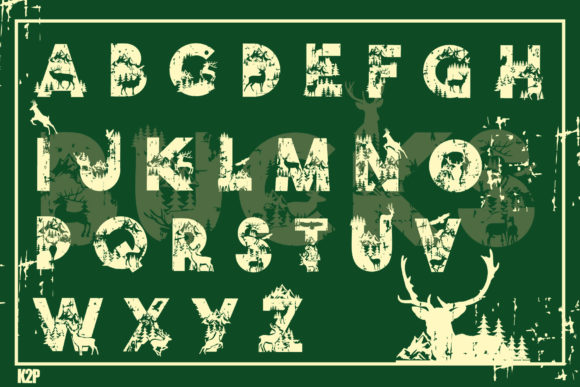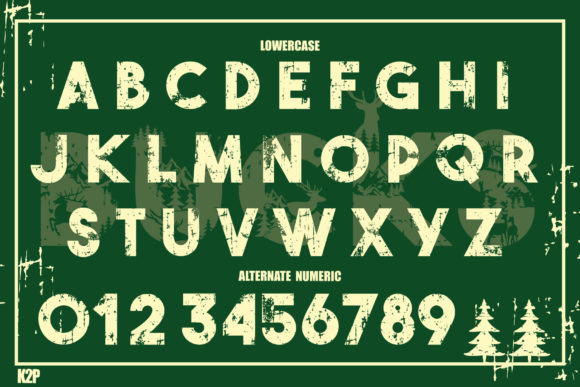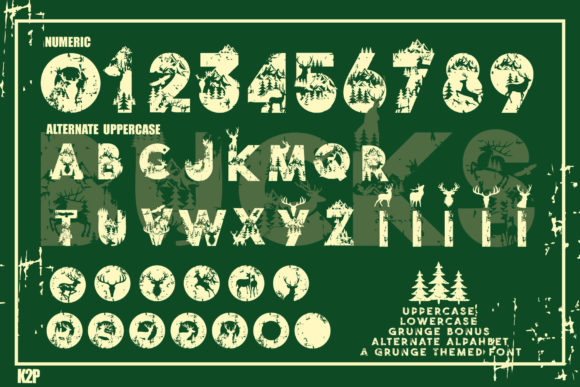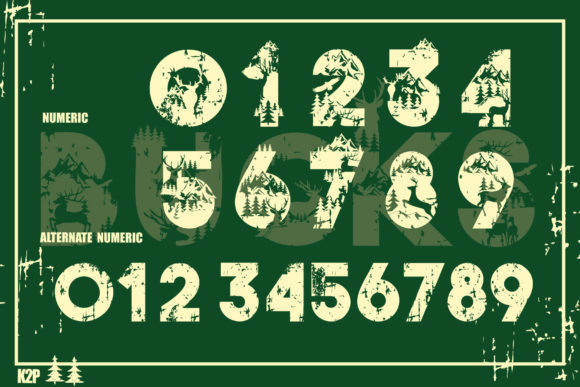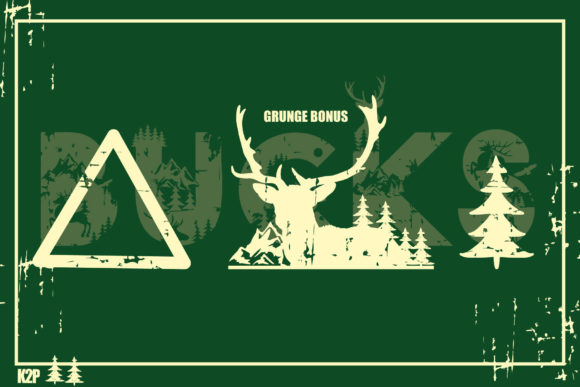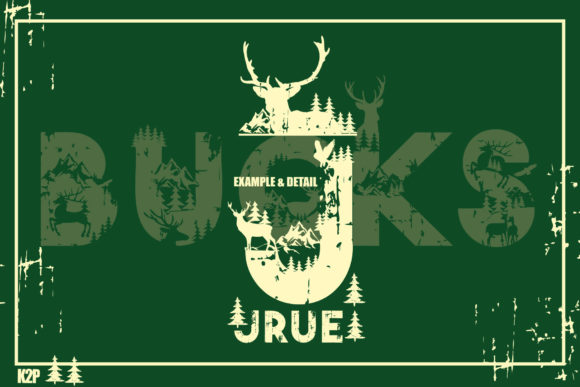
Introducing Bucks Font: The Ultimate Decorative Font for Outdoor Enthusiasts
Are you a designer or crafter looking for a unique and eye-catching font to elevate your creative projects? Look no further than Bucks Font, a fun, original, and assertive decorative font that’s perfect for various design ideas related to fishing, camping, traveling, and more. In this article, we’ll dive into the features and benefits of Bucks Font, and explore how it can take your designs to the next level.
What is Bucks Font?
Bucks Font is a decorative font designed to capture the spirit of adventure and the great outdoors. With its bold and playful style, this font is ideal for creating eye-catching designs that stand out from the crowd. Whether you’re working on a project related to fishing, camping, traveling, or simply want to add a touch of rustic charm to your design, Bucks Font is the perfect choice.
Key Features of Bucks Font
- Fun and Original: Bucks Font is a unique and original design that’s sure to grab attention. Its bold and playful style makes it perfect for creating eye-catching headlines, titles, and graphics.
- Assertive: This font is designed to make a statement. Its assertive style is perfect for designers who want to create bold and impactful designs that leave a lasting impression.
- Versatile: Bucks Font is versatile and can be used for a wide range of design projects, from fishing and camping to traveling and more.
Benefits of Using Bucks Font
So, why choose Bucks Font for your design projects? Here are just a few benefits of using this amazing font:
- Easily Create Eye-Catching Designs: With Bucks Font, you can create eye-catching designs that grab attention and leave a lasting impression.
- Add a Touch of Rustic Charm: This font is perfect for adding a touch of rustic charm to your designs, making it ideal for projects related to outdoor activities.
- Perfect for Designers and Crafters: Whether you’re a designer or crafter, Bucks Font is the perfect choice for anyone looking for a unique and versatile font.
Design Ideas Using Bucks Font
So, what can you create with Bucks Font? Here are just a few design ideas to get you started:
- Fishing and Camping Designs: Use Bucks Font to create eye-catching designs for fishing and camping gear, such as logos, t-shirts, and posters.
- Travel Brochures: Add a touch of rustic charm to your travel brochures with Bucks Font, perfect for promoting outdoor destinations and activities.
- Outdoor Gear Packaging: Use Bucks Font to create bold and impactful packaging designs for outdoor gear, such as water bottles, hiking boots, and camping equipment.
- Custom Signs and Banners: Create custom signs and banners with Bucks Font, perfect for outdoor events, festivals, and more.